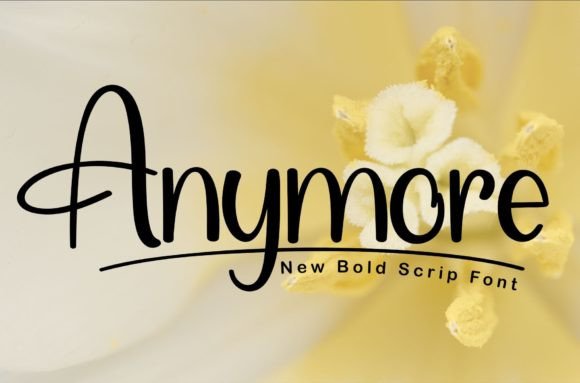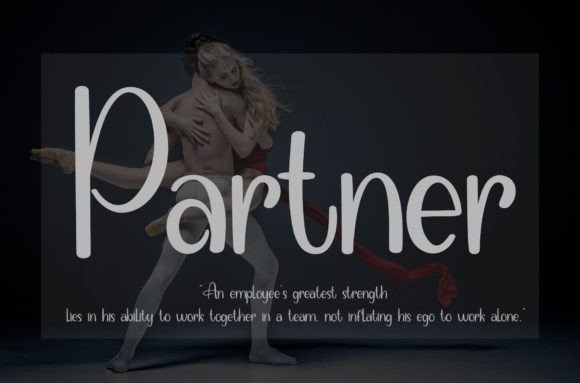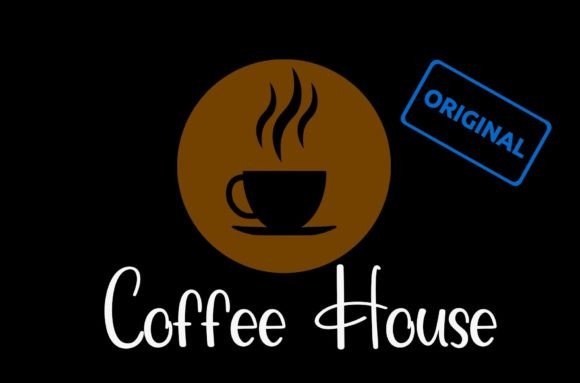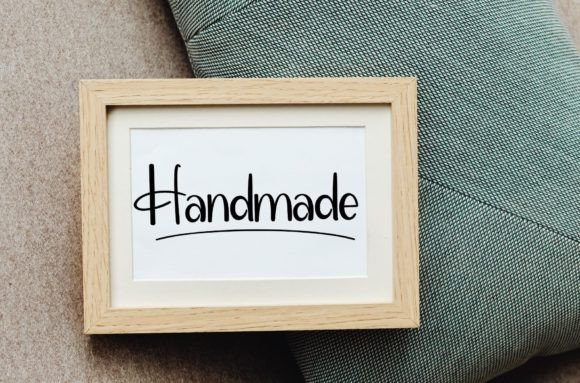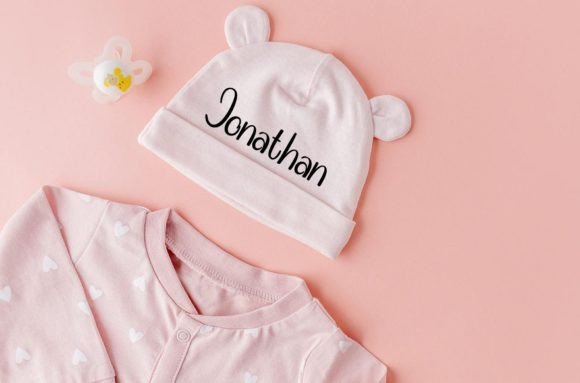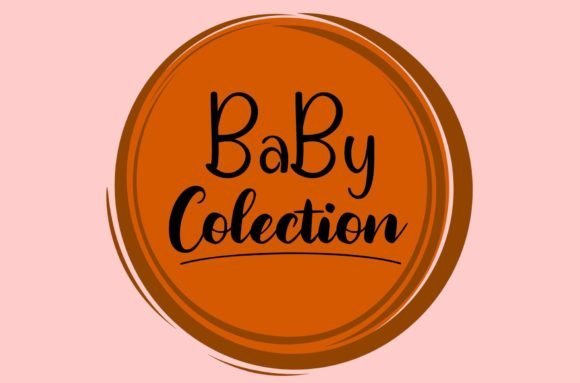
Anymore Font
About Anymore Font
“Anymore” is a delightful and friendly handwritten font designed to infuse a sense of fun into your designs. Its playful nature allows it to stand out, turning any design idea into a true standout. With its unique charm, “Anymore” inspires creativity, making it a perfect choice for creating lovely and engaging designs.
The font’s fun and friendly characteristics are evident in its handwritten style. Each character carries a sense of whimsy, adding a personal touch to your text. Whether you’re working on cards, posters, social media graphics, or any other design project, “Anymore” injects a lighthearted and playful vibe.
Embrace the font’s unique charm, and let it inspire you to create designs that captivate and delight. Its friendly demeanor makes it suitable for a variety of applications, allowing you to experiment with different creative ideas and explore the full potential of “Anymore.”
With “Anymore,” turning any design idea into a standout piece is as easy as leveraging its inherent charm and playfulness. The font invites you to infuse joy and creativity into your projects, ensuring that your designs not only catch the eye but also leave a positive and memorable impression.
In essence, “Anymore” is more than just a font; it’s a design tool that brings a fun and friendly atmosphere to your creative projects. Whether you’re designing for print or digital media, let “Anymore” be the element that adds a touch of playfulness to your designs, turning them into true standouts that resonate with positivity and charm.